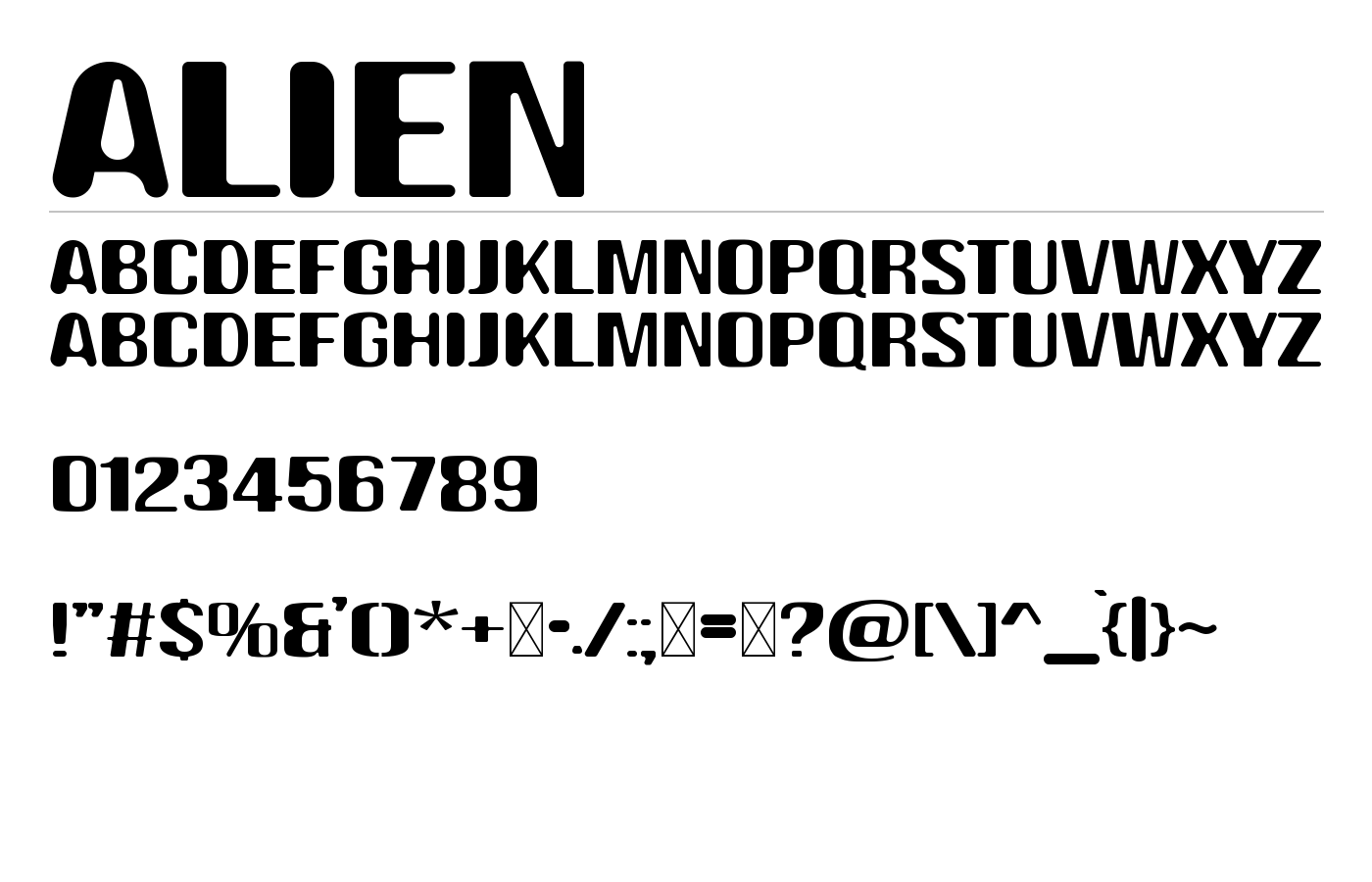
Alien Font is a bold, condensed sans serif with a distinctive futuristic style that combines rounded and sharp edges for a unique, eye-catching look. Its strong presence and clean lines make it ideal for headlines, logos, and branding that seek a modern, tech-inspired vibe. This font works well in designs needing a bold statement with a touch of sci-fi flair.
Alien Font
About Alien Font